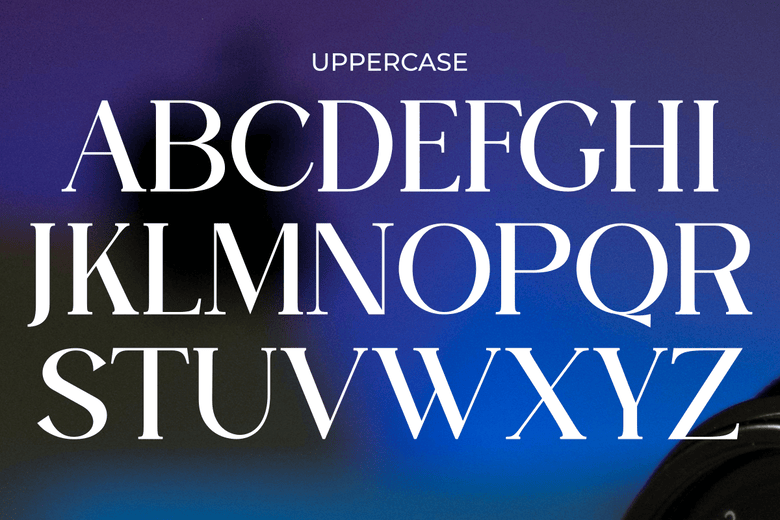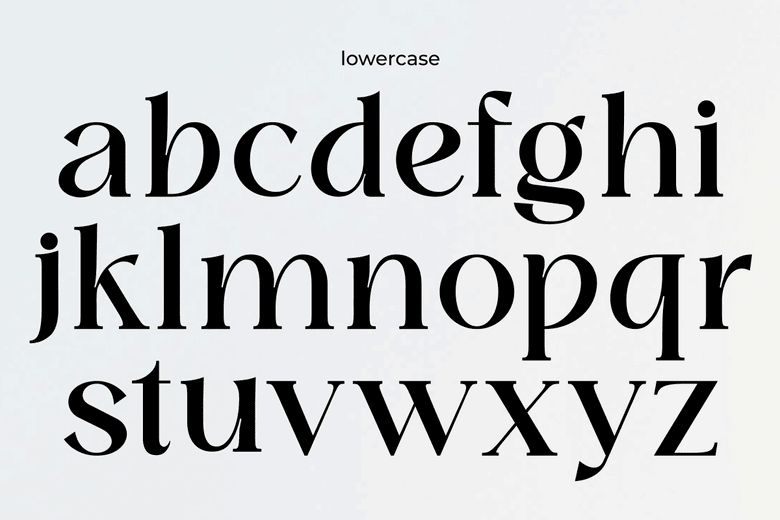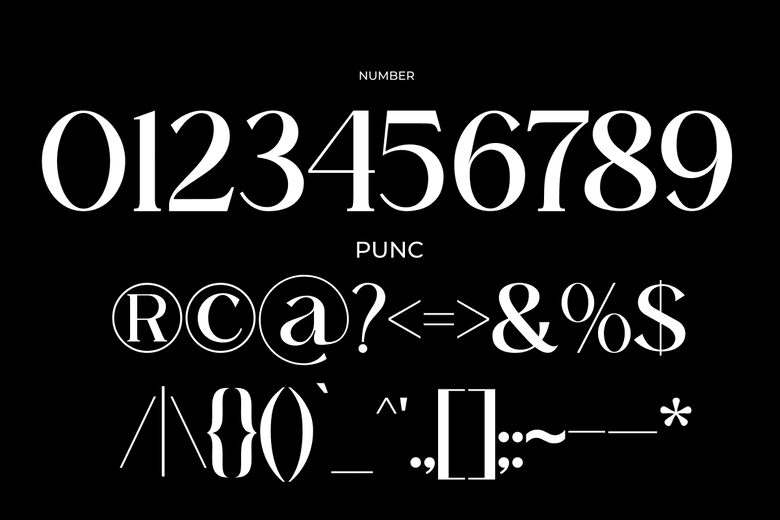
Domilla Font
Domilla Font: Elegant Serif Typeface
Typography plays a crucial role in shaping the aesthetics of a design. A well-crafted font can elevate a brand’s visual appeal, improve readability, and create a lasting impression. One such remarkable typeface is Domilla Font, an modern elegant ligature serif font by Zaain Type. Whether you’re a graphic designer, branding expert, or typography enthusiast, Domilla Font offers a unique blend of sophistication and versatility that makes it an excellent choice for various design projects.
Domilla Serif Font
Domilla Font
What is Domilla Font?
Domilla Font is a modern serif typeface designed with elegance and style in mind. Inspired by the beauty of blooming flowers and timeless charm, this font exudes class and refinement. It comes in two stunning styles, Regular and Oblique, making it a versatile option for different creative needs. Whether used for logos, editorial designs, social media graphics, or invitations, Domilla Font enhances the aesthetic appeal of any project.
Key Features of Domilla Font
Domilla Font is not just another serif typeface; it brings several features that set it apart from the rest:
• Elegant Ligatures – The font includes stylish ligatures that add a unique, flowing touch to the text, making it perfect for luxury branding and high-end designs.
• Regular & Oblique Styles – The two variations allow for flexibility in design, giving users options to match different themes and aesthetics.
• Timeless Appeal – Inspired by classic typography with a modern twist, Domilla Font maintains a refined look suitable for various applications.
• Great Readability – Despite its decorative ligatures, the font maintains excellent legibility, making it a suitable choice for both print and digital media.
• Versatile Usage – From wedding invitations and fashion editorials to website headers and business branding, Domilla Font adapts effortlessly to different design needs.
Why Choose Domilla Font?
Domilla Font
Choosing the right font can make or break a design. Here’s why Domilla Font is a standout option:
1. Enhances Visual Identity
Typography significantly impacts branding, and Domilla Font’s refined style helps create a strong brand identity. It works exceptionally well for luxury brands, beauty products, fashion labels, and high-end magazines.
2. Perfect for Print and Digital Design
Whether you’re working on digital content such as social media graphics, website banners, or online advertisements, or print materials like brochures, invitations, and posters, Domilla Font delivers a polished and sophisticated look.
3. High-Quality Design
Created by Zaain Type, Domilla Font is meticulously designed with precision and attention to detail. The carefully crafted ligatures and well-balanced letterforms ensure a premium typographic experience.
4. Easy to Use
How to Use Domilla Font Effectively
Domilla Font
To maximize the impact of Domilla Font, consider the following design tips:
• Pair it with Minimalist Fonts – Use a simple sans-serif font to complement Domilla’s elegant ligatures for a balanced design.
• Use Ample Spacing – Give your text enough breathing room to enhance readability and highlight the beauty of the ligatures.
• Choose the Right Color Palette – Domilla Font works well with neutral, pastel, and gold tones, enhancing its sophisticated appeal.
• Apply in Branding Materials – Utilize it in business logos, social media graphics, and packaging to create a memorable brand image.
Final Thoughts
Domilla Font is an excellent choice for designers looking for a modern, elegant, and sophisticated serif typeface. With its beautiful ligatures, multiple styles, and timeless appeal, it is perfect for various design projects, from branding to editorial layouts. Whether you’re designing for a luxury brand, wedding invitation, or high-end fashion magazine, Domilla Font will add the perfect touch of class and professionalism.